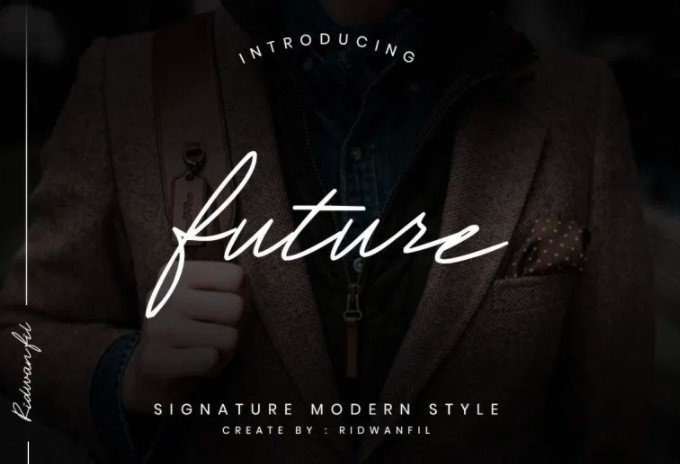
Hey, fantastic designers Today, we are excited to introduce the incredible Future Font. This wonderful and stylish typeface boasts a feminine monotype handwritten design with natural-looking stylistic elements, making it an excellent choice for your projects.